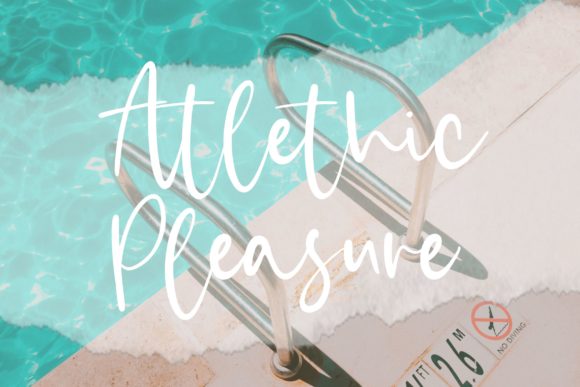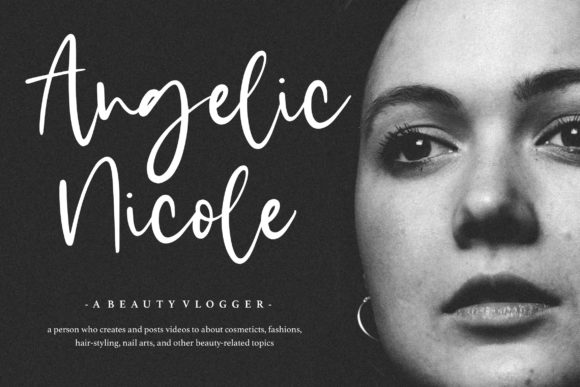
Daily Moon Font
db-ku.com - Script & Handwritten -- Daily Moon is a stylish and dreamy script font. It looks lovely on wedding invitations, thank you cards, quotes, greeting cards, logos, business cards and so much more.